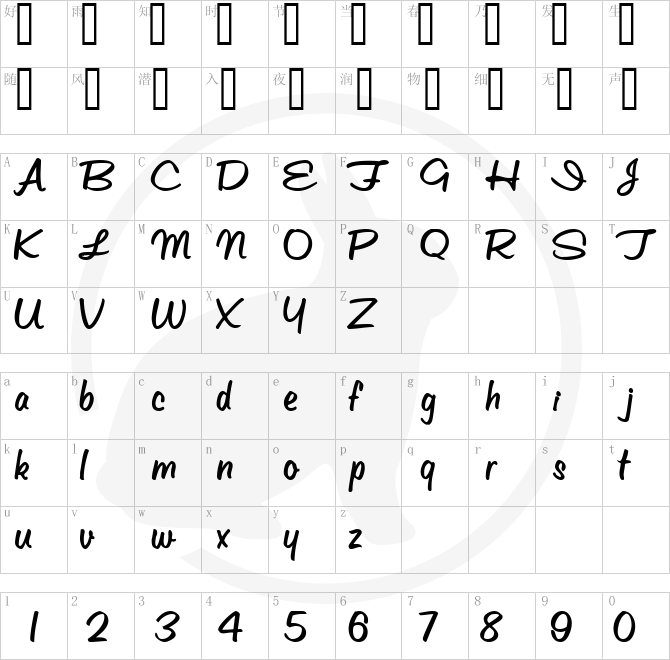
- Font Name:ObetteScriptSSK
- Full Name:ObetteScriptSSK Bold
ObetteScriptSSK-Bold.ttf is a very beautiful artistic font, ObetteScriptSSK-Bold.ttf is widely used in the design and printing of various books and pictures,ObetteScriptSSK-Bold.ttf has a strong visual impact,ObetteScriptSSK-Bold.ttf is a commonly used font in newspapers, magazines and books, and is used in posters, e-commerce Poster design, store design, logo design, font design and other fields.ObetteScriptSSK-Bold.